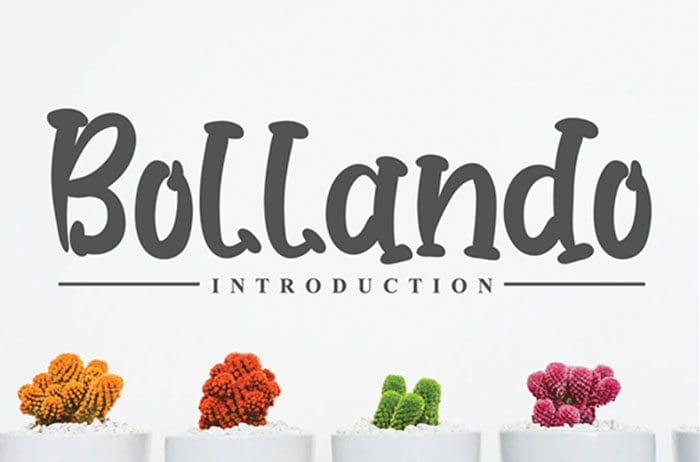
Free Bollando Display Font
Bollando Display Font
Free Bollando classy and elegant display font with a friendly feel. This font is the perfect fit for wall displays, wedding invitations, social media post logos, advertisements, product packaging, product designs, labels, photography, watermarks, invitations or stationery. Designed this font by Andika Studio. You can also search more freeĀ Display Fonts.